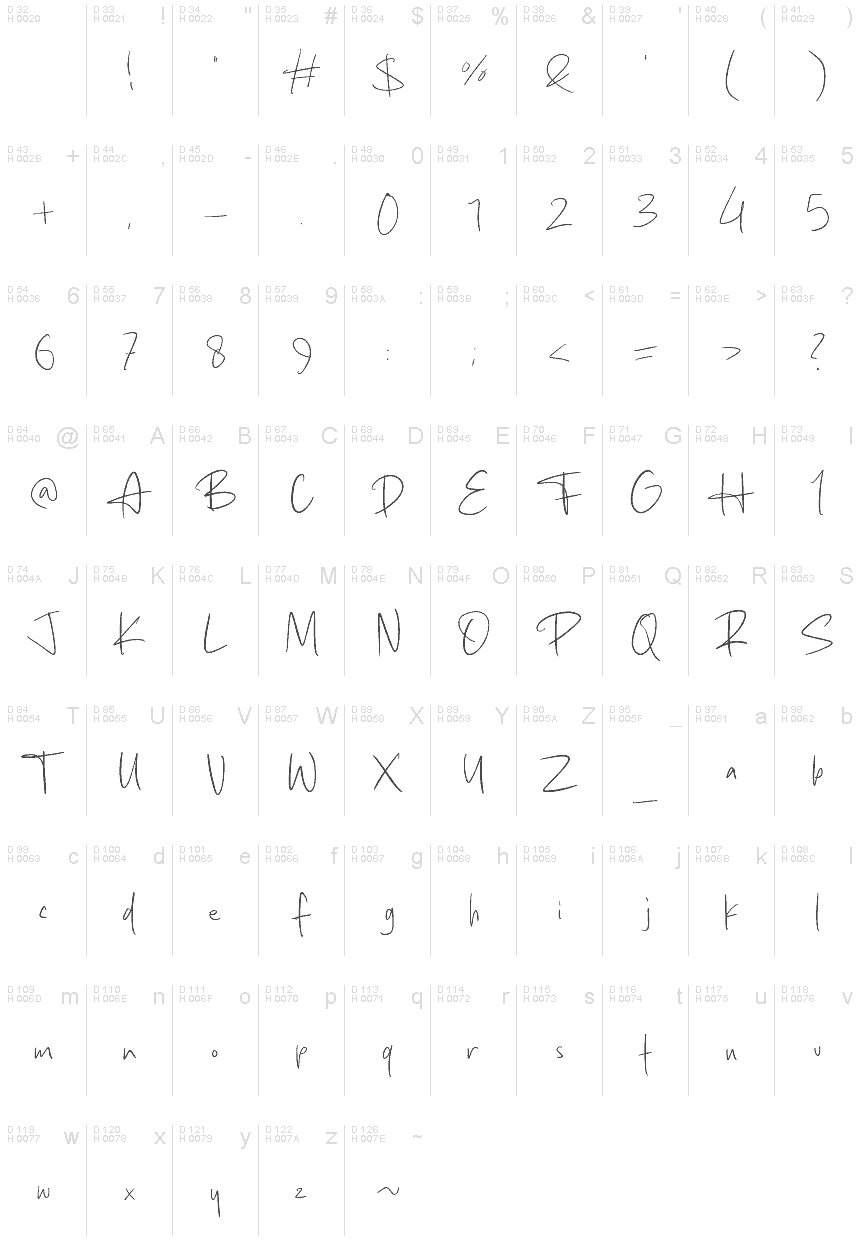
Black Storage
Black Storage font by MJType is an expressive light handwritten font with a casual style, matching a modern aesthetic in design. Its exceptional energetic flow of letters adds that striking touch to the project.